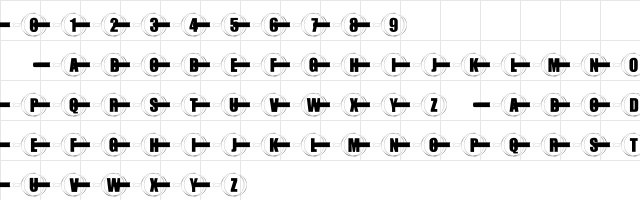
101! Closer Inspection Regular
Design Context for 101! Closer Inspection Typeface
101! Closer Inspection is a composed and adaptable typeface that performs quietly and consistently across a wide range of design contexts.